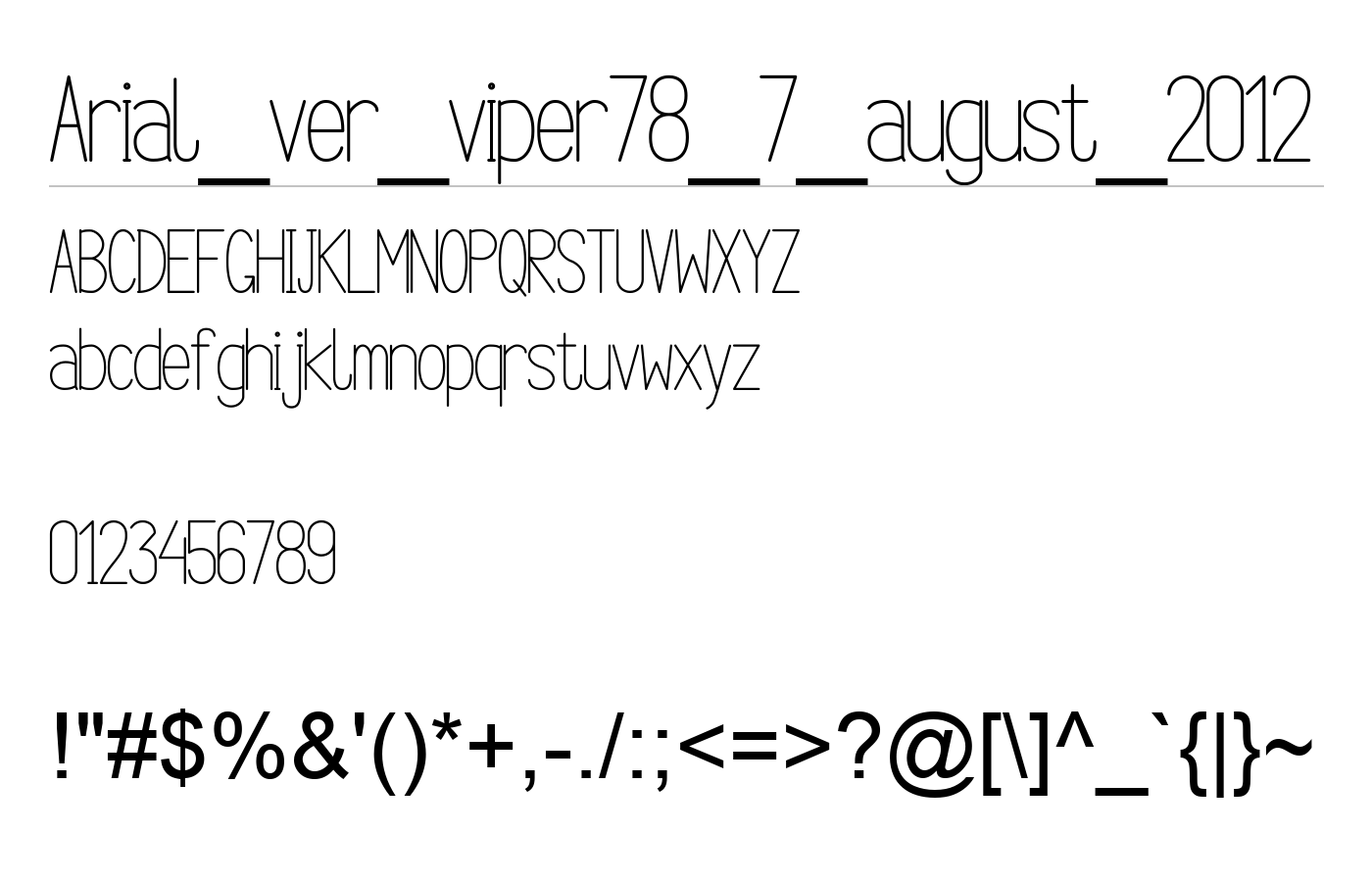
Argocksaz_viper78 is a slender, condensed sans serif font with a tall x-height and very light weight, giving it an airy and delicate appearance. Its clean, geometric letterforms convey a modern and minimalist feel, making it ideal for sleek, contemporary designs where space is limited and elegance is desired. This font works well in headlines, logos, and editorial contexts that require a refined yet distinctive touch.
Argocksaz_viper78 Font
About Argocksaz_viper78 Font